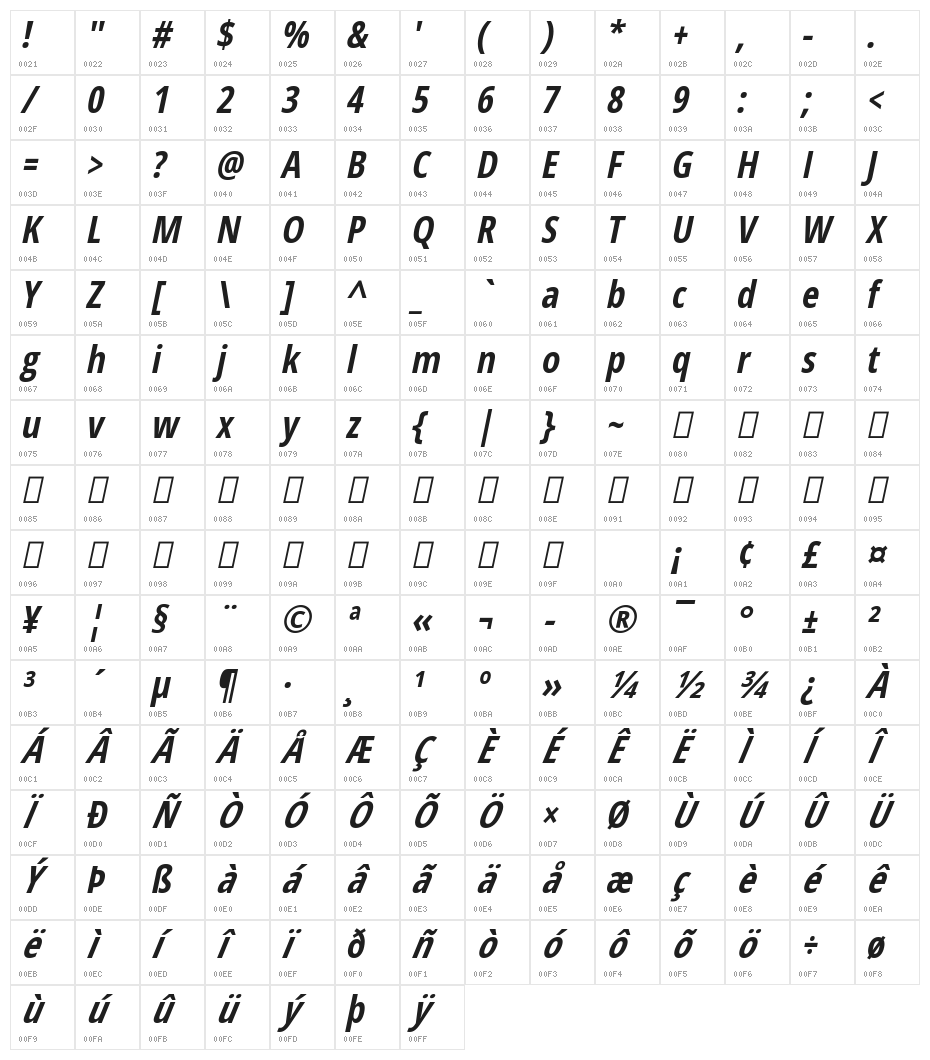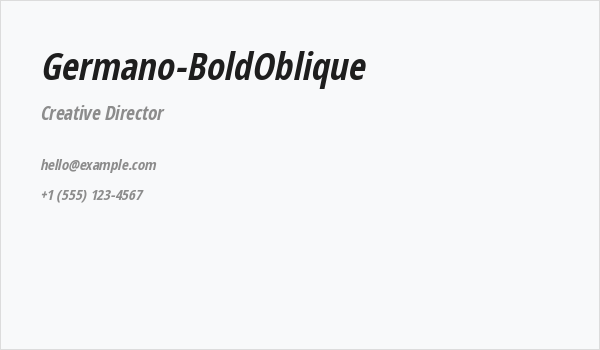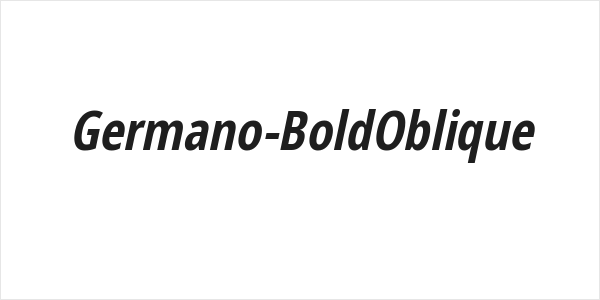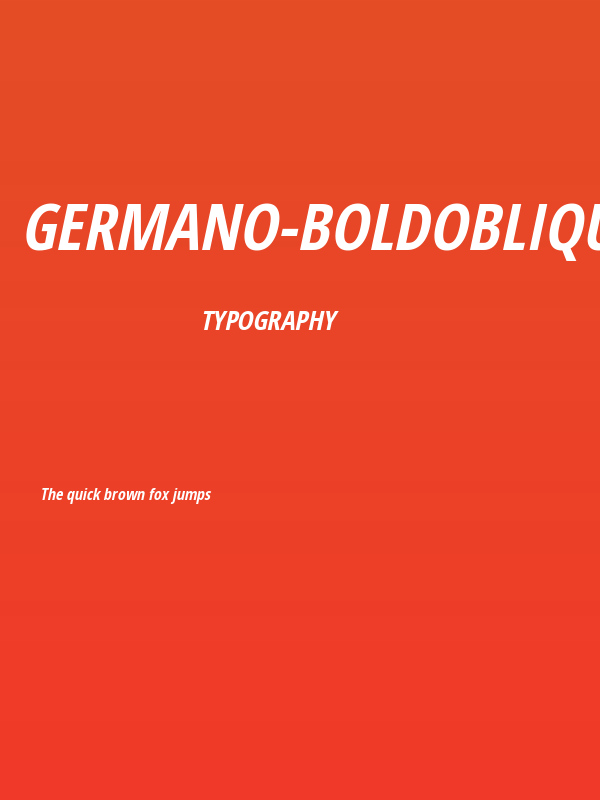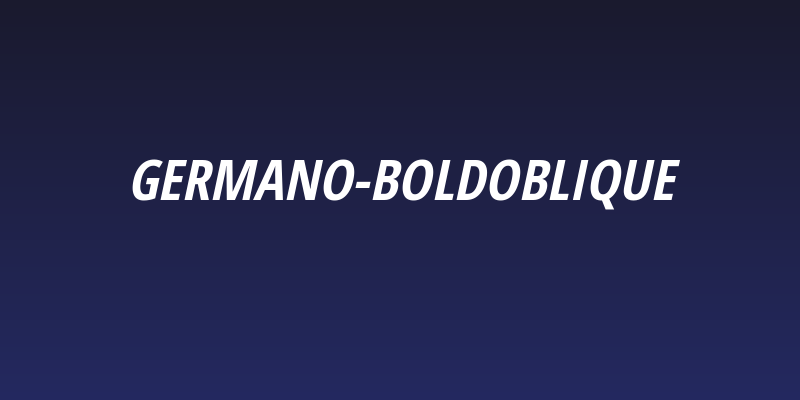
Germano-BoldOblique Font
Germano-BoldOblique Description
This font exhibits a bold and dynamic presence with its oblique style, giving it a sense of motion and energy. The characters are robust and well-defined, featuring a consistent stroke width that enhances readability. The slanted design adds a modern and stylish flair, making it suitable for attention-grabbing headlines and impactful designs. The uppercase and lowercase letters maintain a harmonious balance, while the numerals and special characters are clear and distinct, ensuring versatility across various applications.
| Proposed Projects | Ideal for branding, advertising, headlines, and posters where a strong and modern impression is desired. |